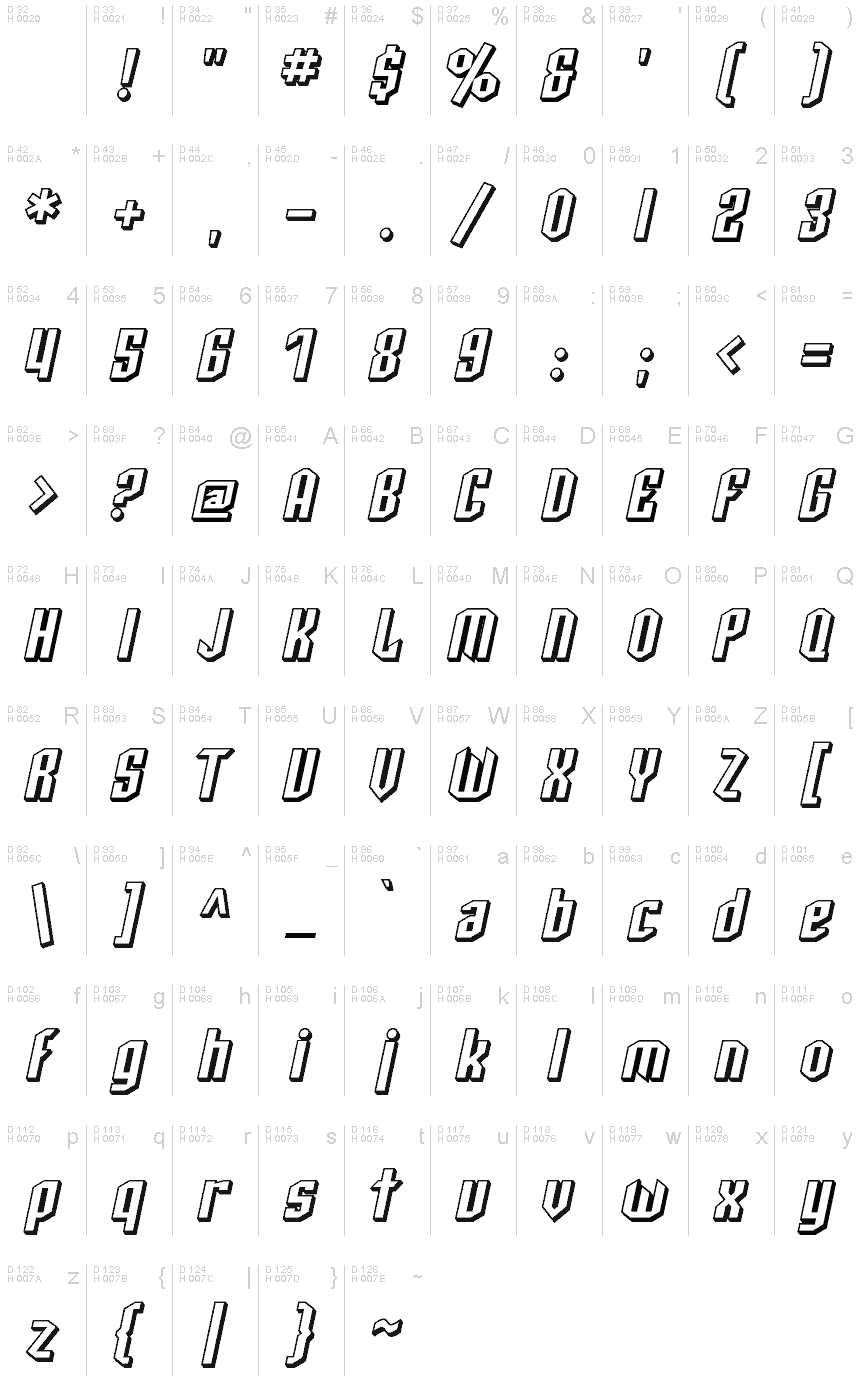
SF Archery Black Shaded Oblique
SF Archery Black Shaded Oblique is a striking and versatile font that adds depth and dimension to any creative project. As part of the SF Archery Black font family, it embodies the unique characteristics of boldness and elegance. Its 3d gothic style instantly captures attention, making it perfect for eye-catching designs that demand a strong visual impact.
The semi-bold weight of SF Archery Black Shaded Oblique adds a sense of strength and power to your typography, while its extra-condensed width allows for efficient use of space. Whether you're designing logos, headlines, or posters, this font excels in creating a dynamic visual presence.
Created by ShyFonts Type Foundry, SF Archery Black Shaded Oblique offers endless possibilities for expressing creativity across various digital and print mediums. Its distinctiveness makes it particularly suitable for projects that require a modern and edgy aesthetic. Unleash your design potential with SF Archery Black Shaded Oblique!
The semi-bold weight of SF Archery Black Shaded Oblique adds a sense of strength and power to your typography, while its extra-condensed width allows for efficient use of space. Whether you're designing logos, headlines, or posters, this font excels in creating a dynamic visual presence.
Created by ShyFonts Type Foundry, SF Archery Black Shaded Oblique offers endless possibilities for expressing creativity across various digital and print mediums. Its distinctiveness makes it particularly suitable for projects that require a modern and edgy aesthetic. Unleash your design potential with SF Archery Black Shaded Oblique!